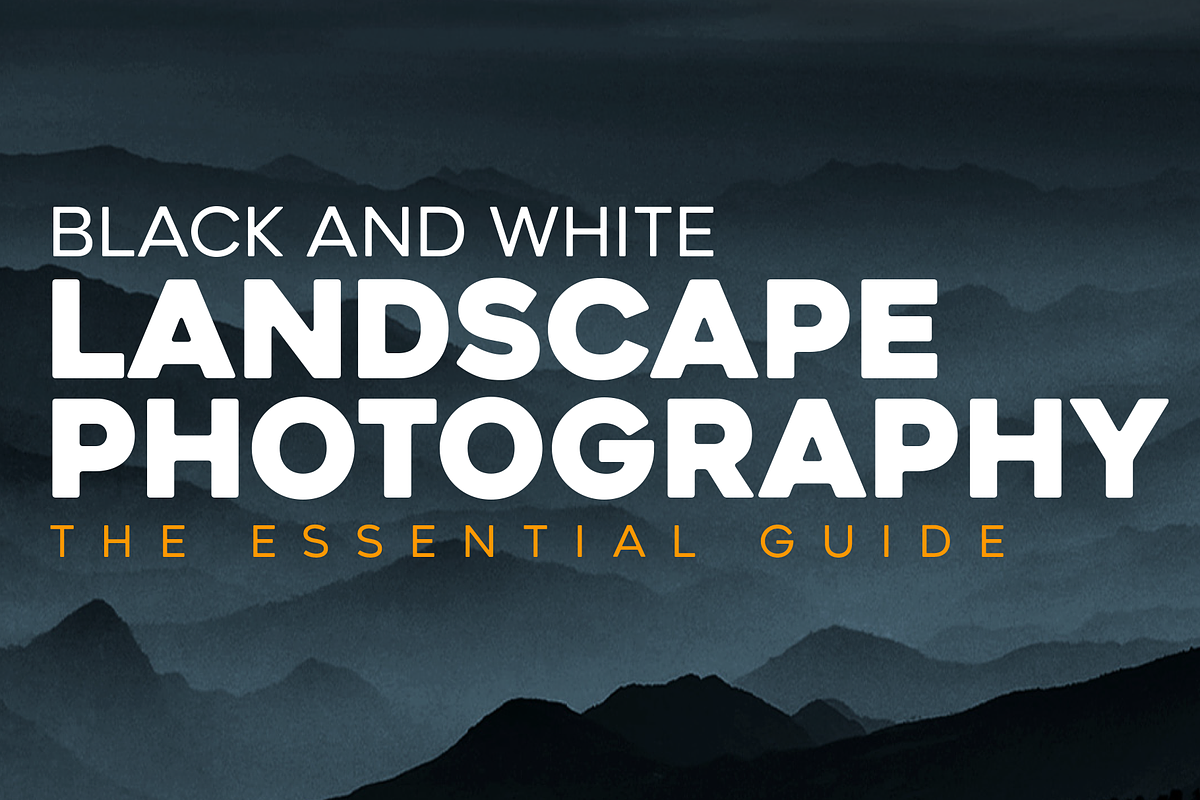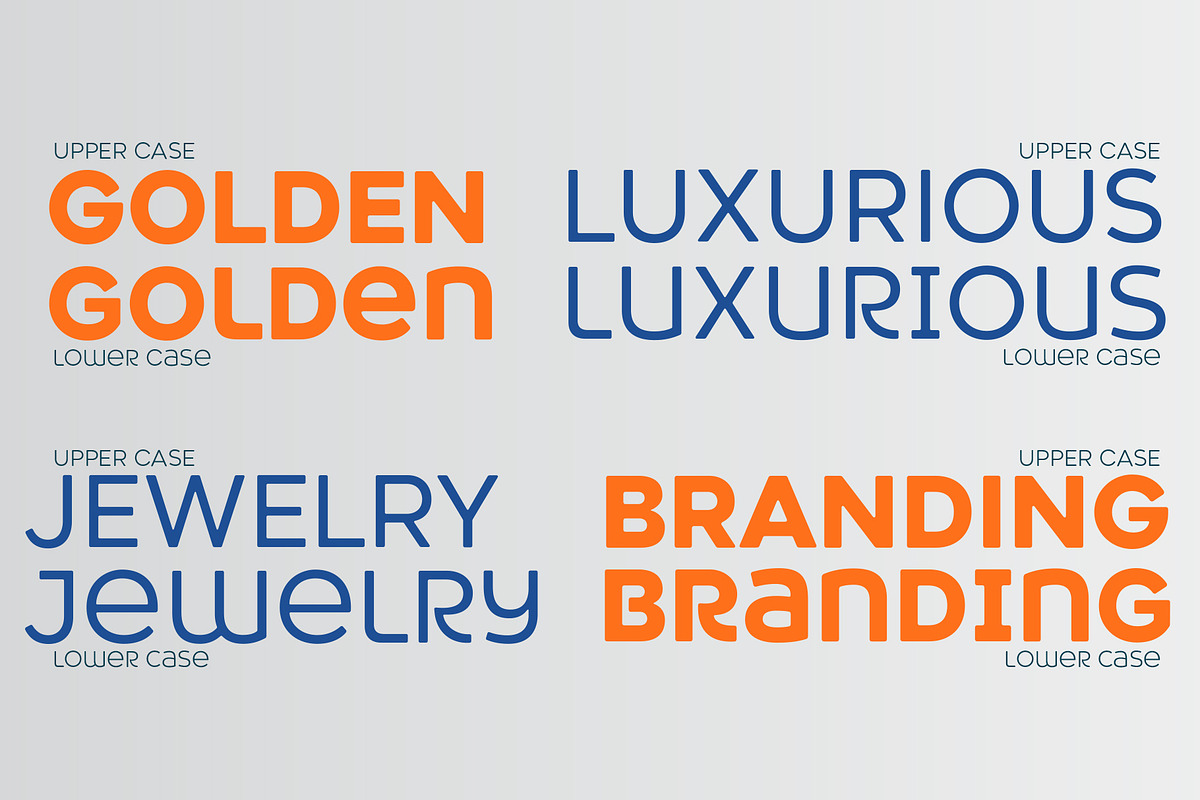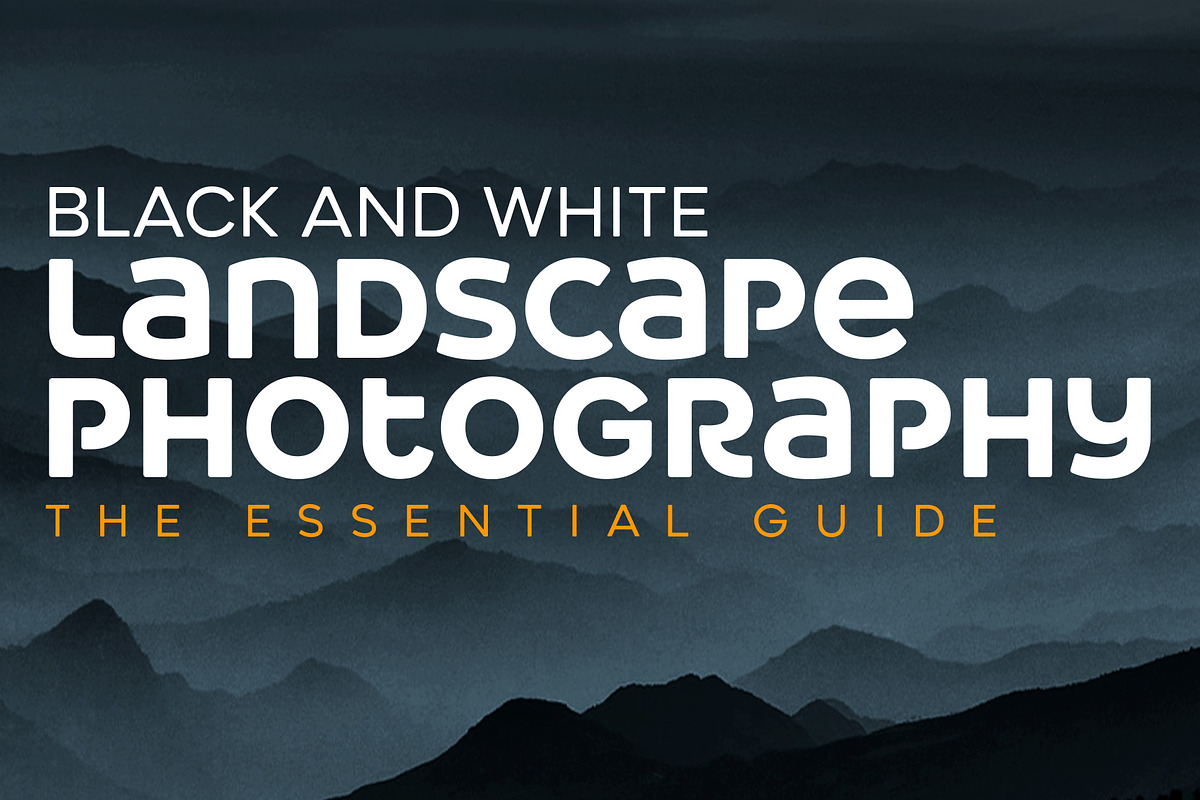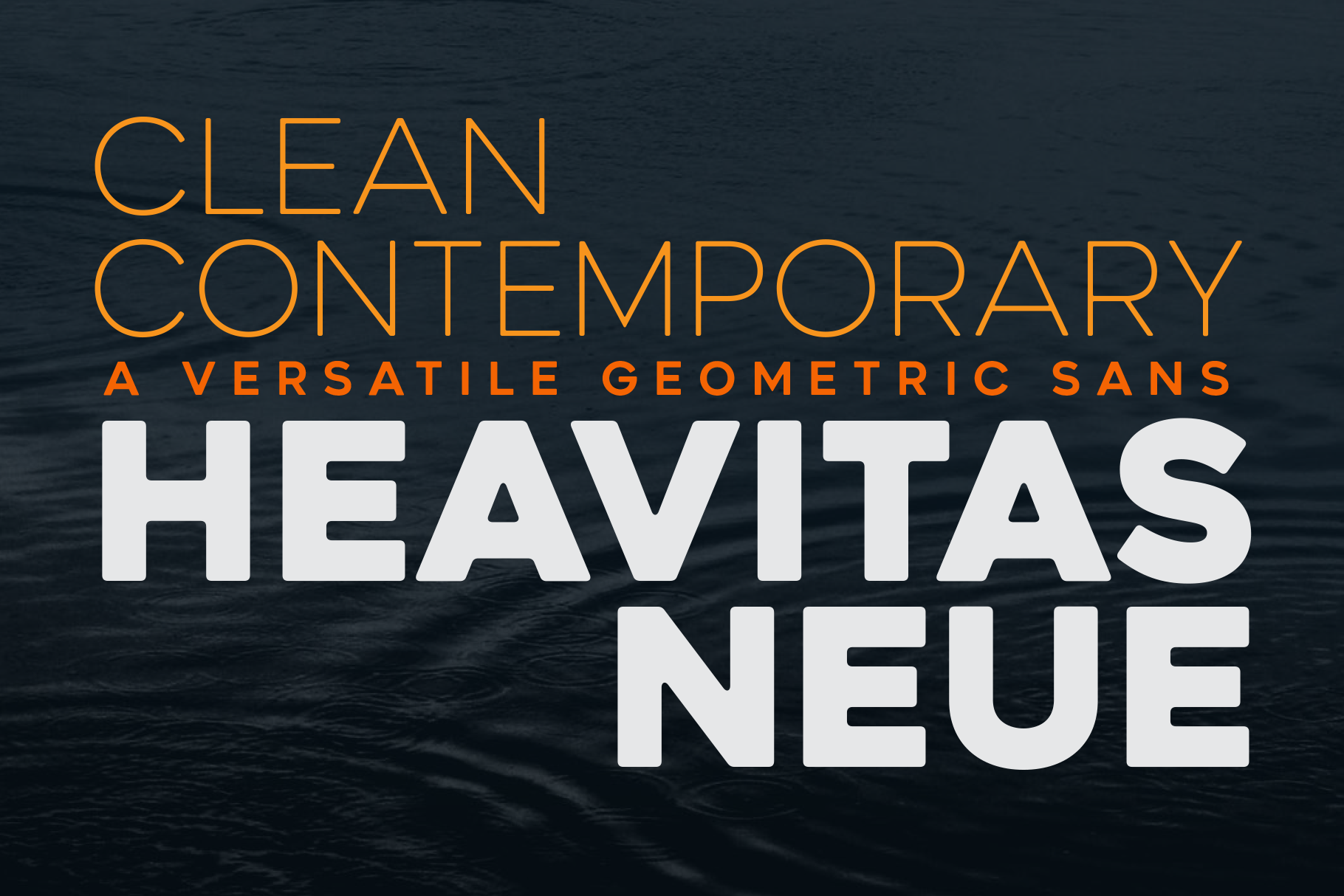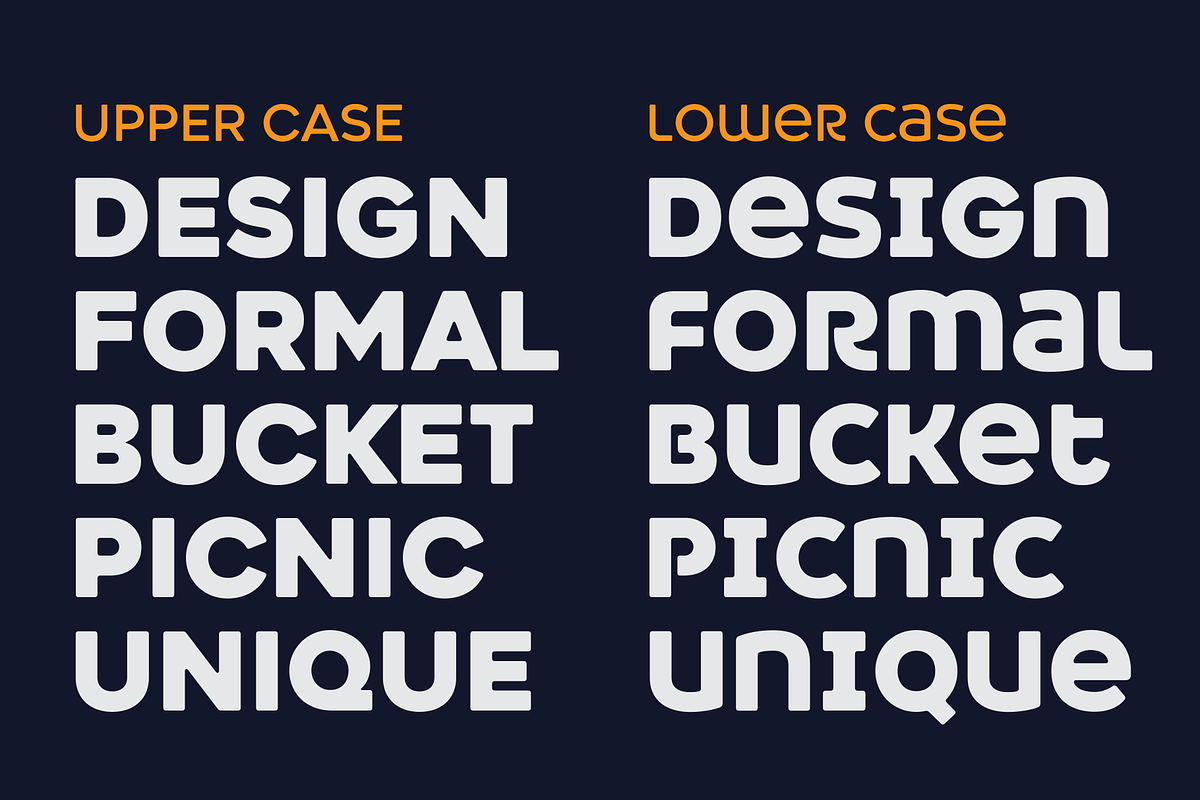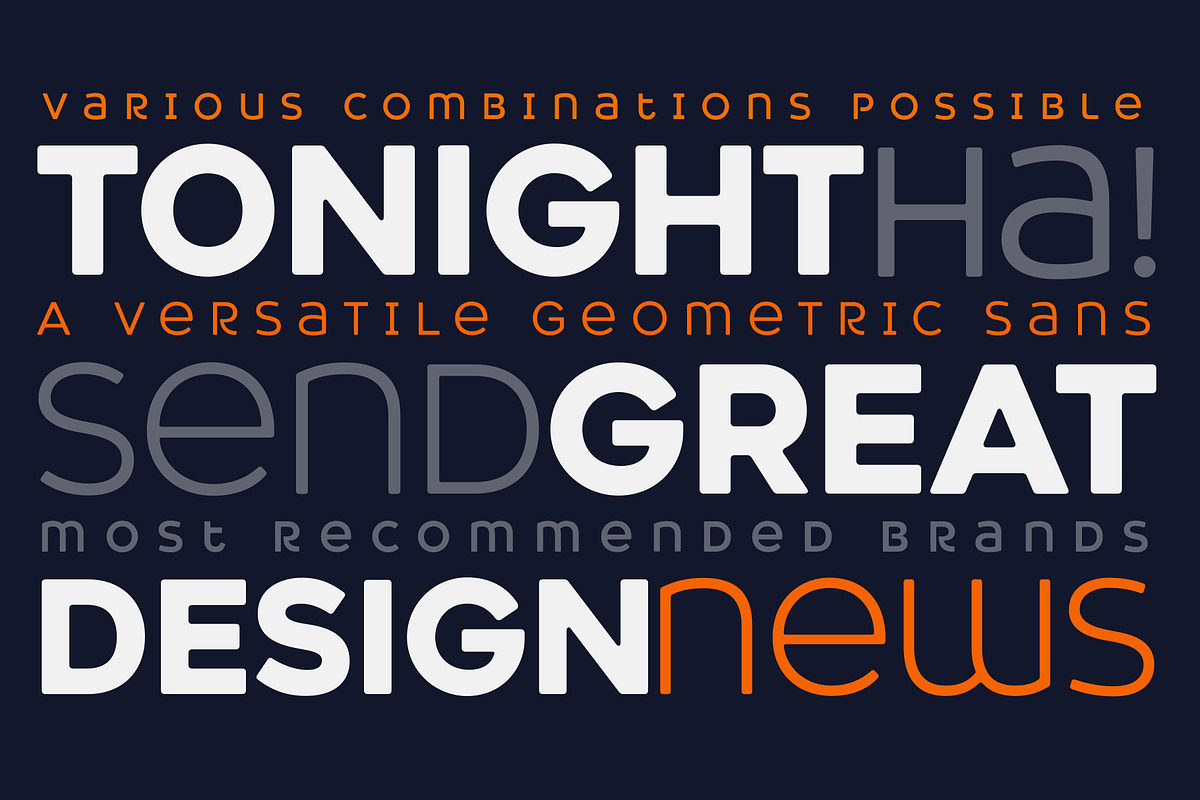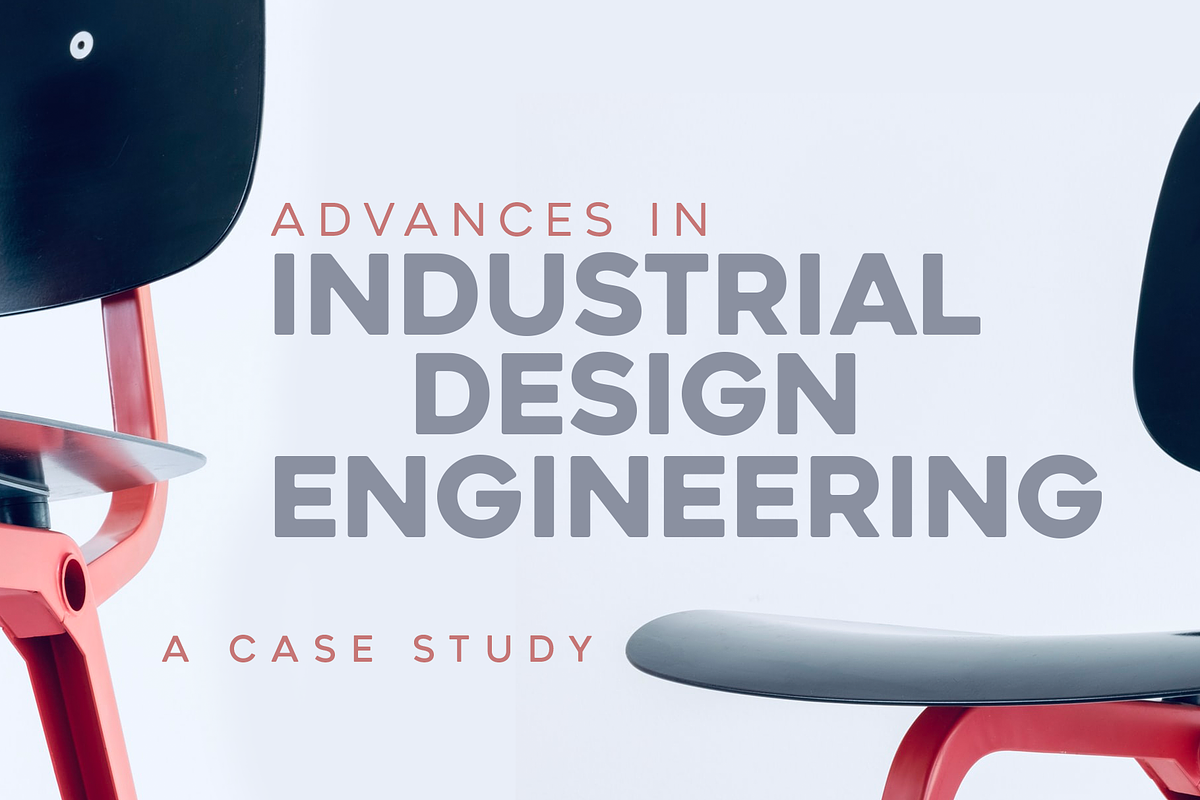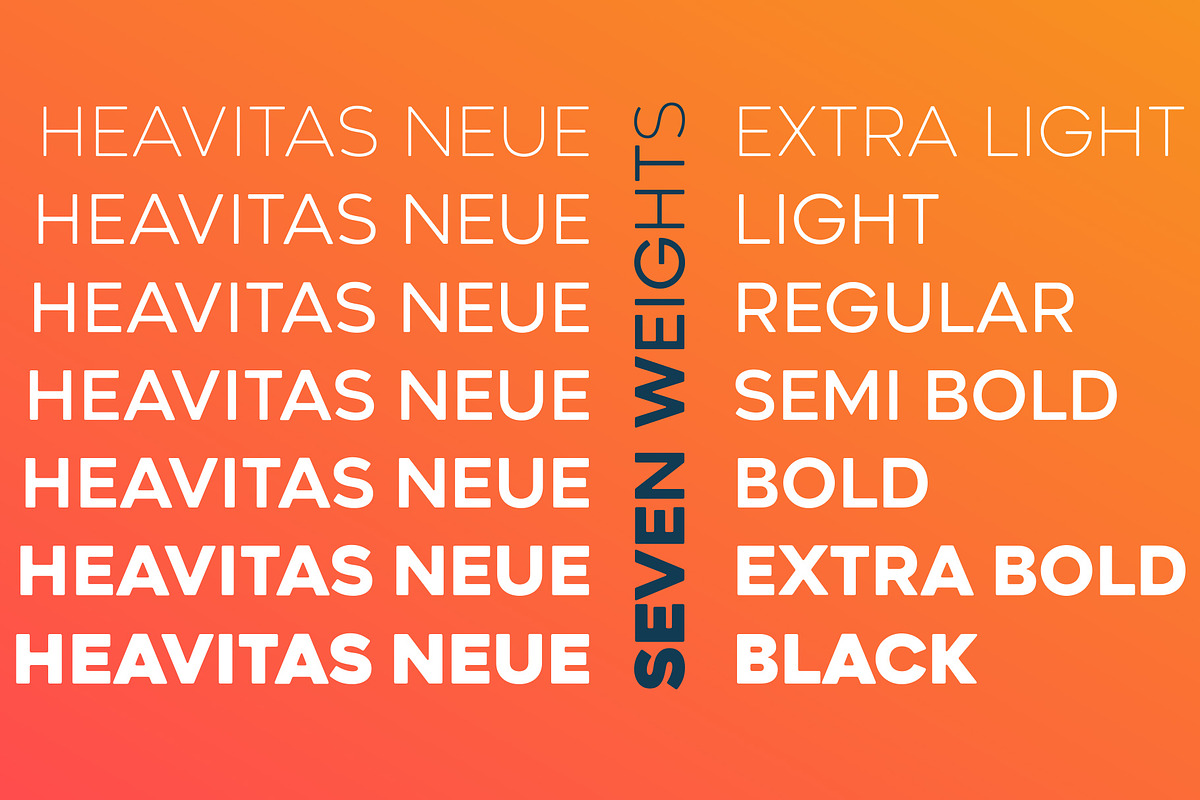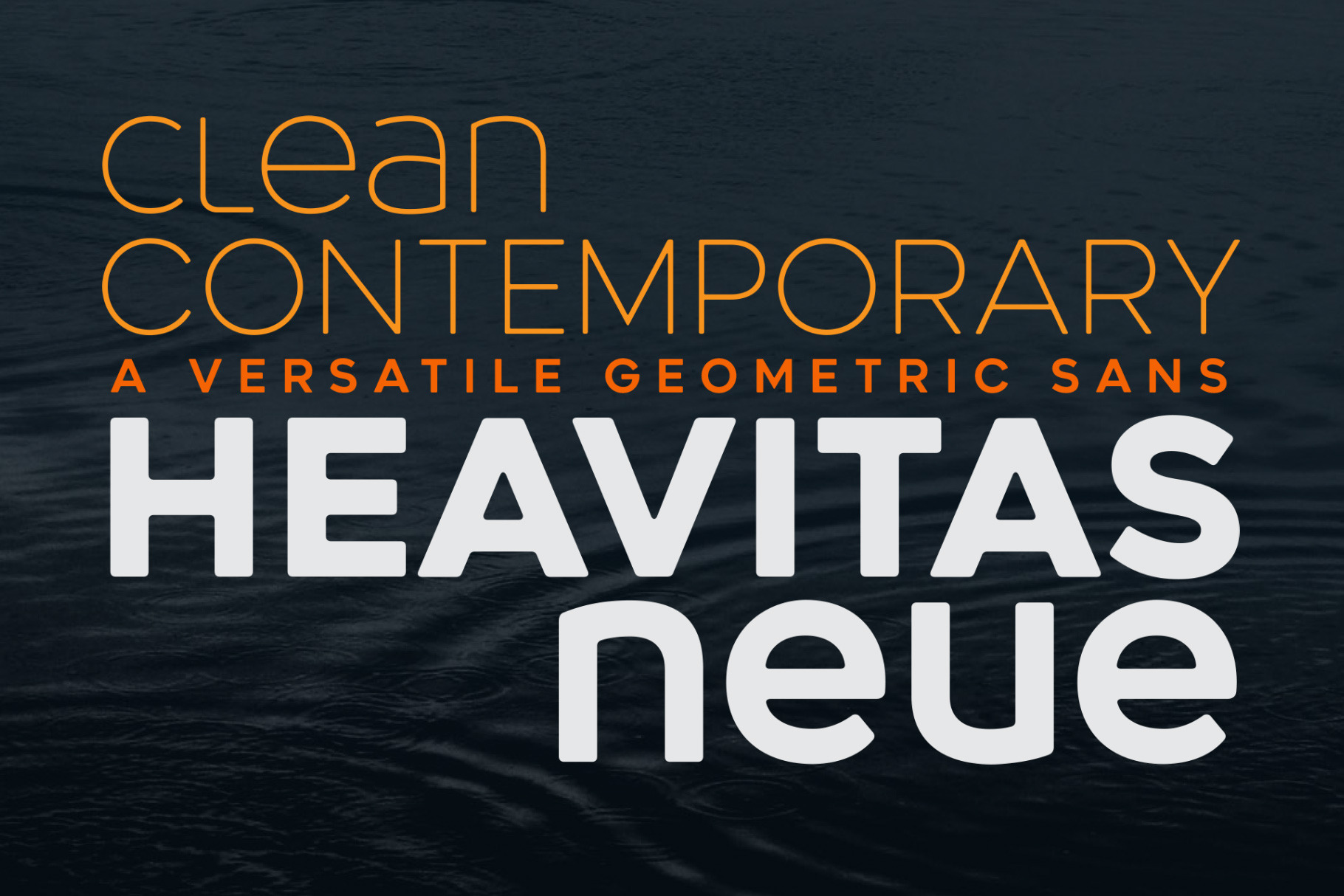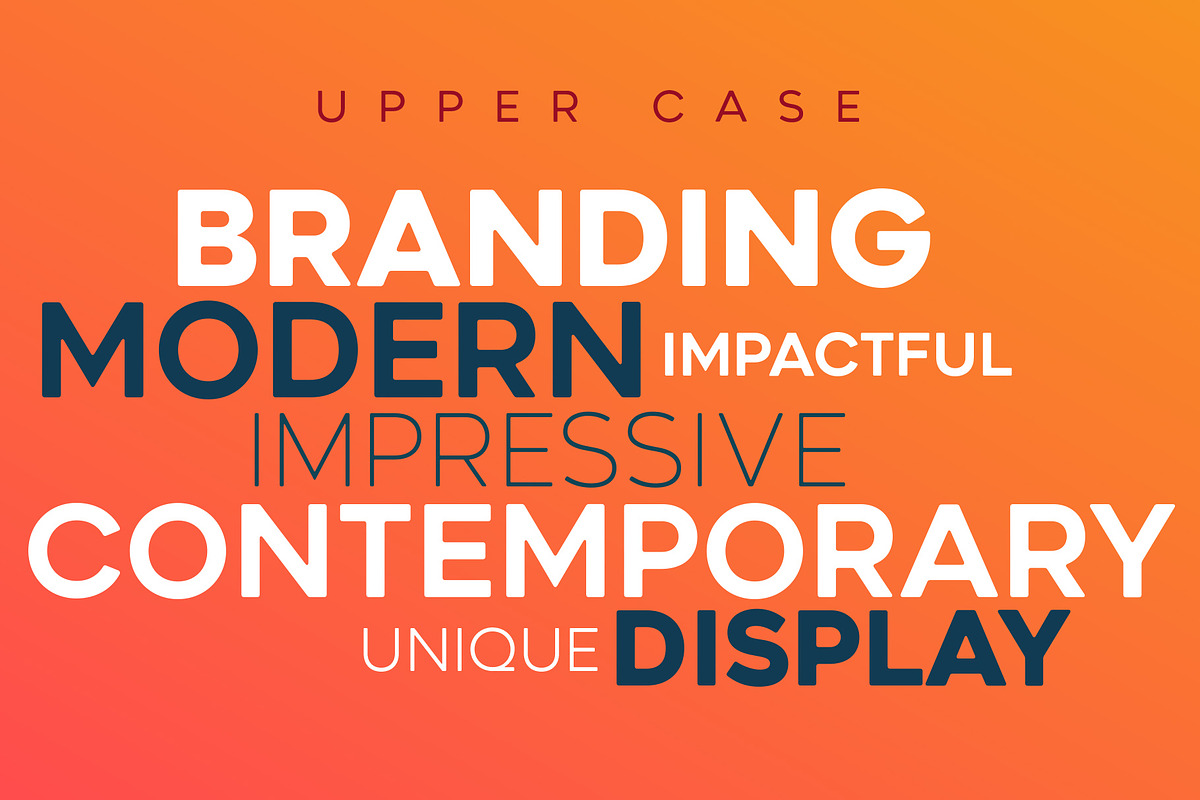
Heavitas Neue Font family
Heavitas Neue is an upgraded full family of the popular font Heavitas. It is a versatile and flexible all caps font family, with most of the upper case characters different from the lower case ones. By using either only upper case, or only lower case, or a mixed combination of upper and lower characters, a totally different look of the font can be achieved. Heavitas Neue has a strong and distinct character, suitable for, but not limited to, logotypes, headlines, branding, books, signage, motion graphics and packaging.